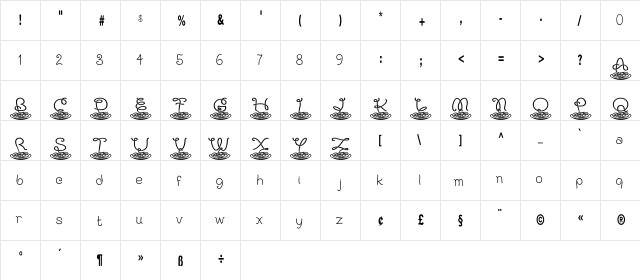
KAPastaAldente Regular
Design Context for KAPastaAldente Typeface
KAPastaAldente is a composed and adaptable typeface that performs quietly and consistently across a wide range of design contexts.